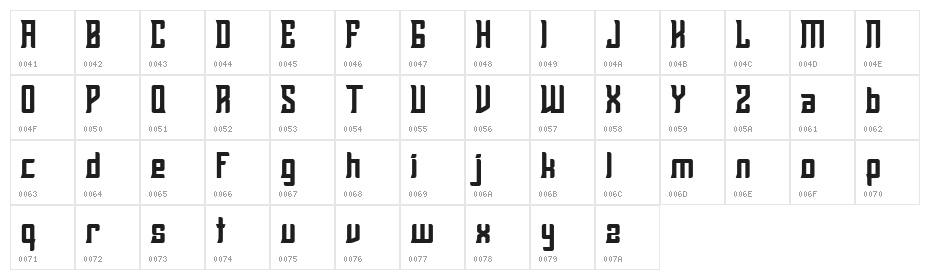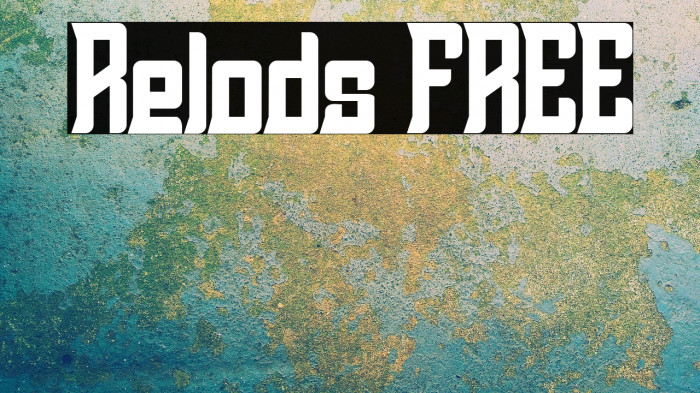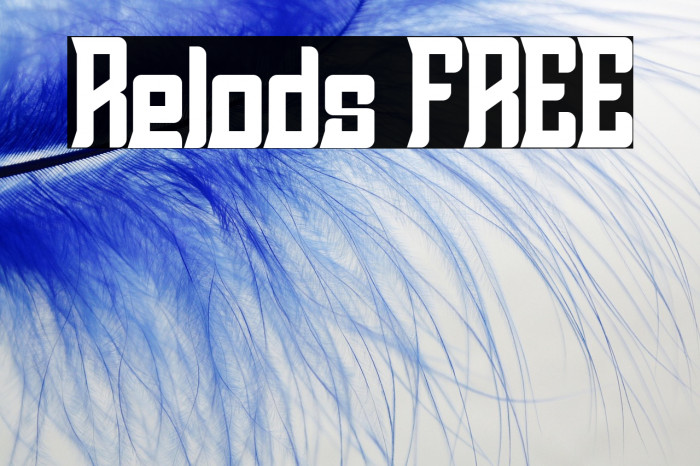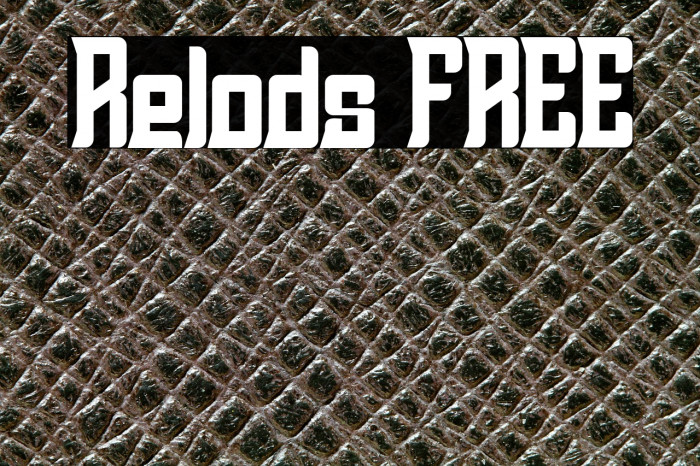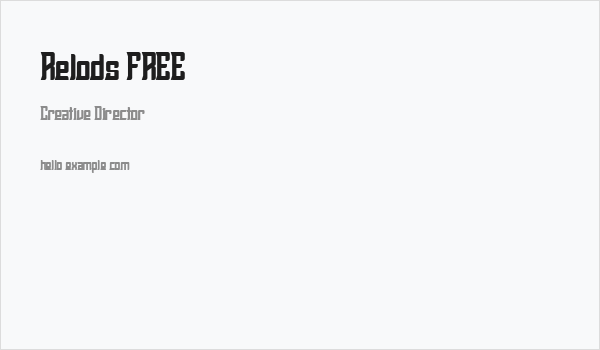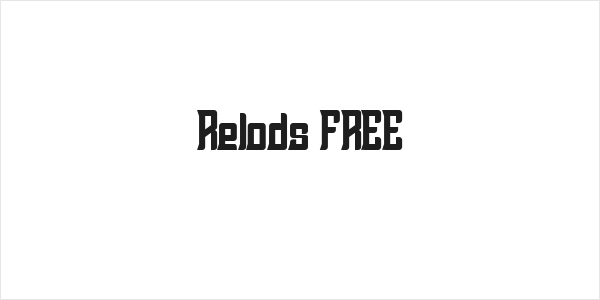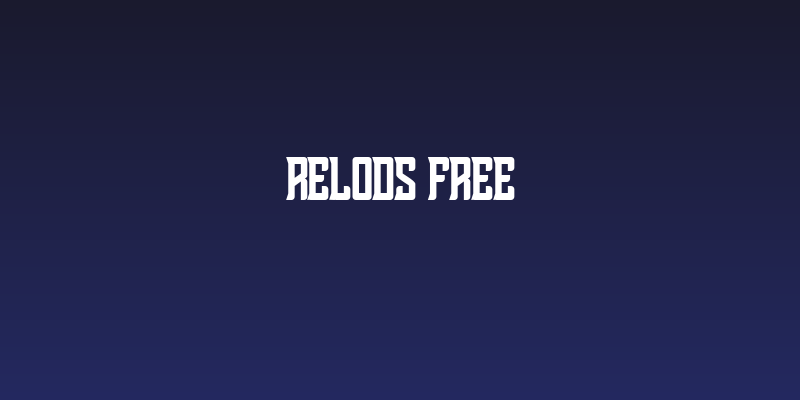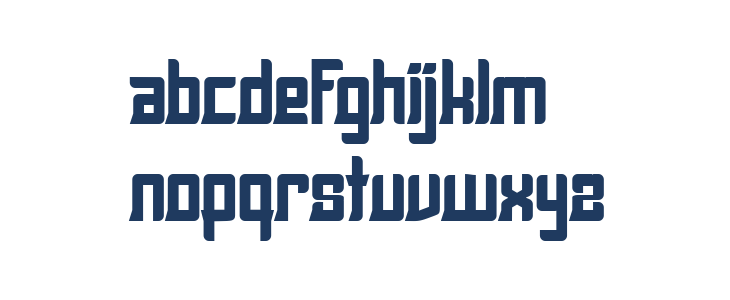
Relods FREE Font
Relods FREE Description
This font features a bold and geometric design with a strong presence. The characters are constructed with thick, uniform strokes, giving them a robust and impactful appearance. The angular edges and straight lines contribute to a modern and industrial feel, making it suitable for attention-grabbing headlines and titles. The uppercase and lowercase letters maintain a consistent style, ensuring readability while adding a unique flair. The numbers and special characters are designed to match the overall aesthetic, providing a cohesive look across all elements.
| Proposed Projects | Ideal for branding, posters, and signage where a strong visual impact is desired. |